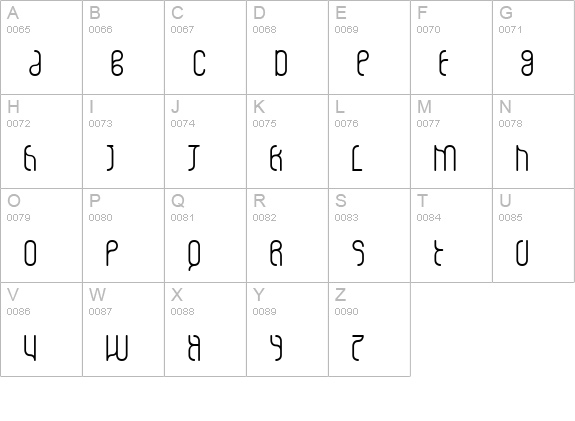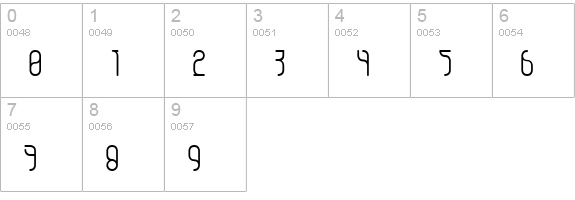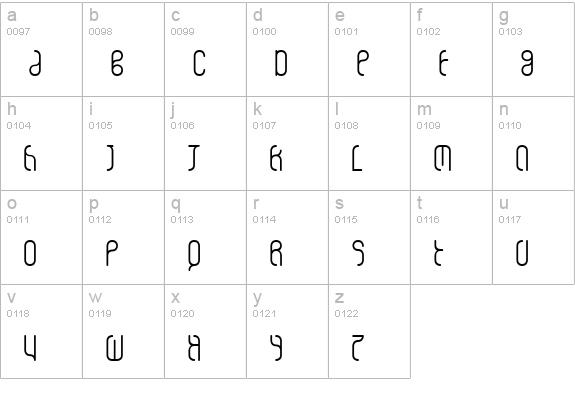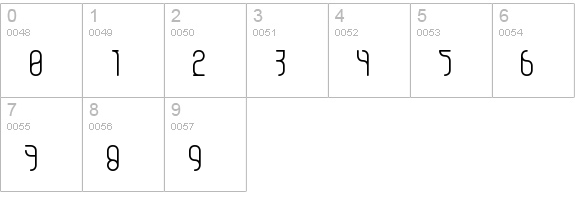
overegular Font Details
Overegular font is a versatile and modern typeface that is perfect for a wide range of design projects. With its clean lines and balanced proportions, this font exudes a sense of professionalism and sophistication. Whether you're creating a sleek business card, a stylish website, or eye-catching marketing materials, Overegular font is sure to make your text stand out. The best part is that Overegular font is completely free to download at FontsMarket.com. This means that you can easily access this high-quality font without breaking the bank. So why wait? Add Overegular font to your collection today and take your designs to the next level.